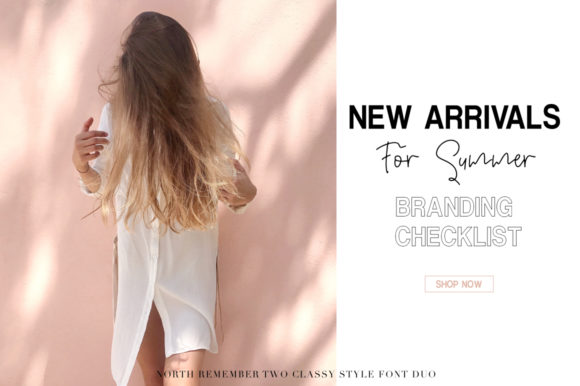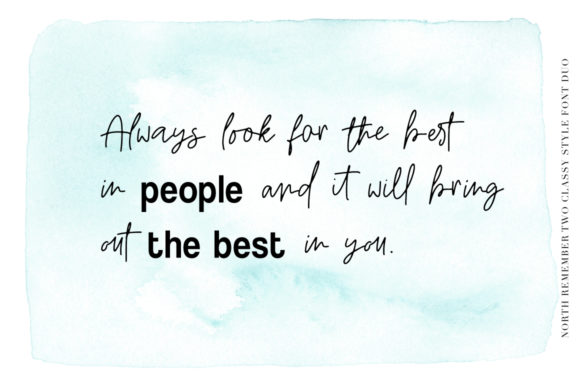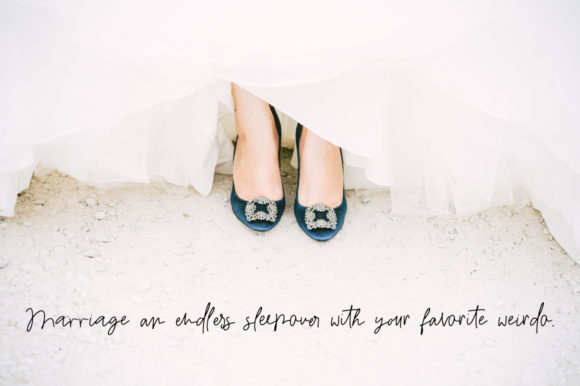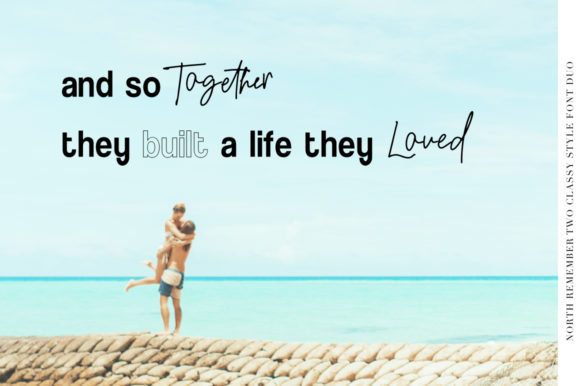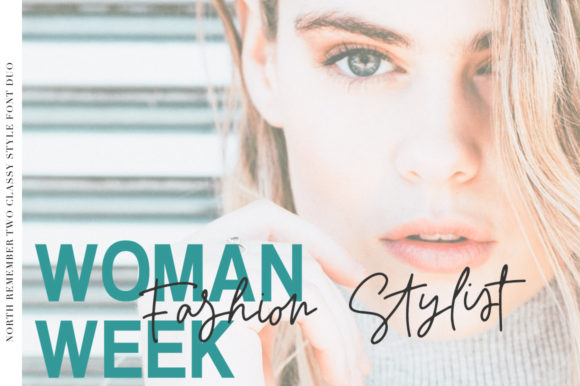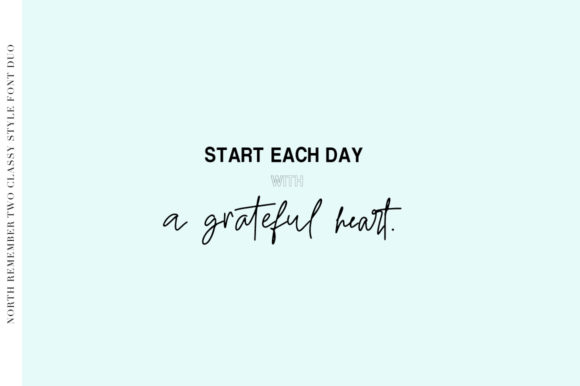
North Remember Duo Font
About North Remember Duo Font
The North Remember is an amazing font duo. It has a fashionable, yet striking look which is perfect for high impact headlines.